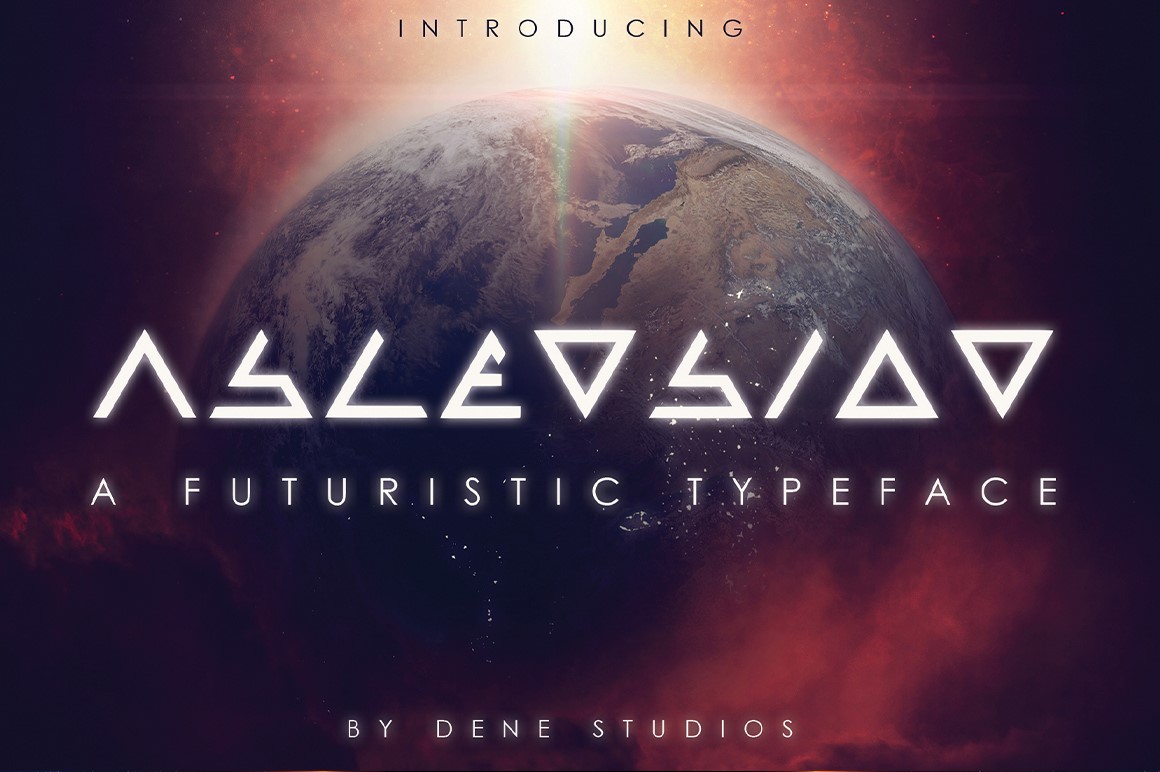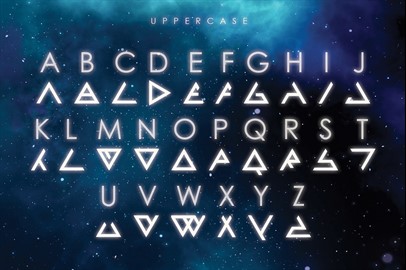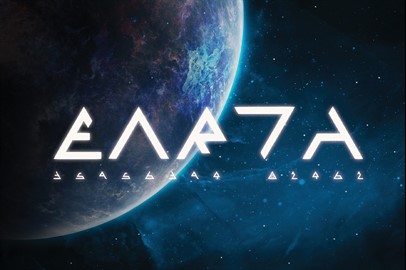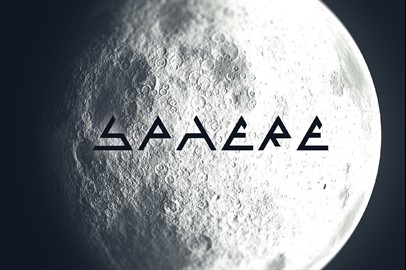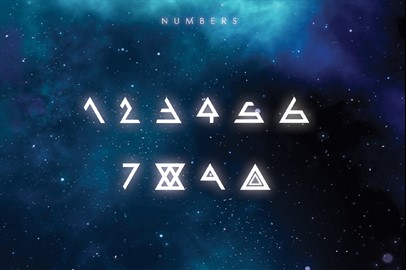
ASCENSION - A Futuristic Typeface
ASCENSION is a unique and creative design that has been passionately handcrafted to give you a futuristic typeface. Inspired by a story, where everything of importance comes in three's. Contains upper and lowercase letters as well as numbers.